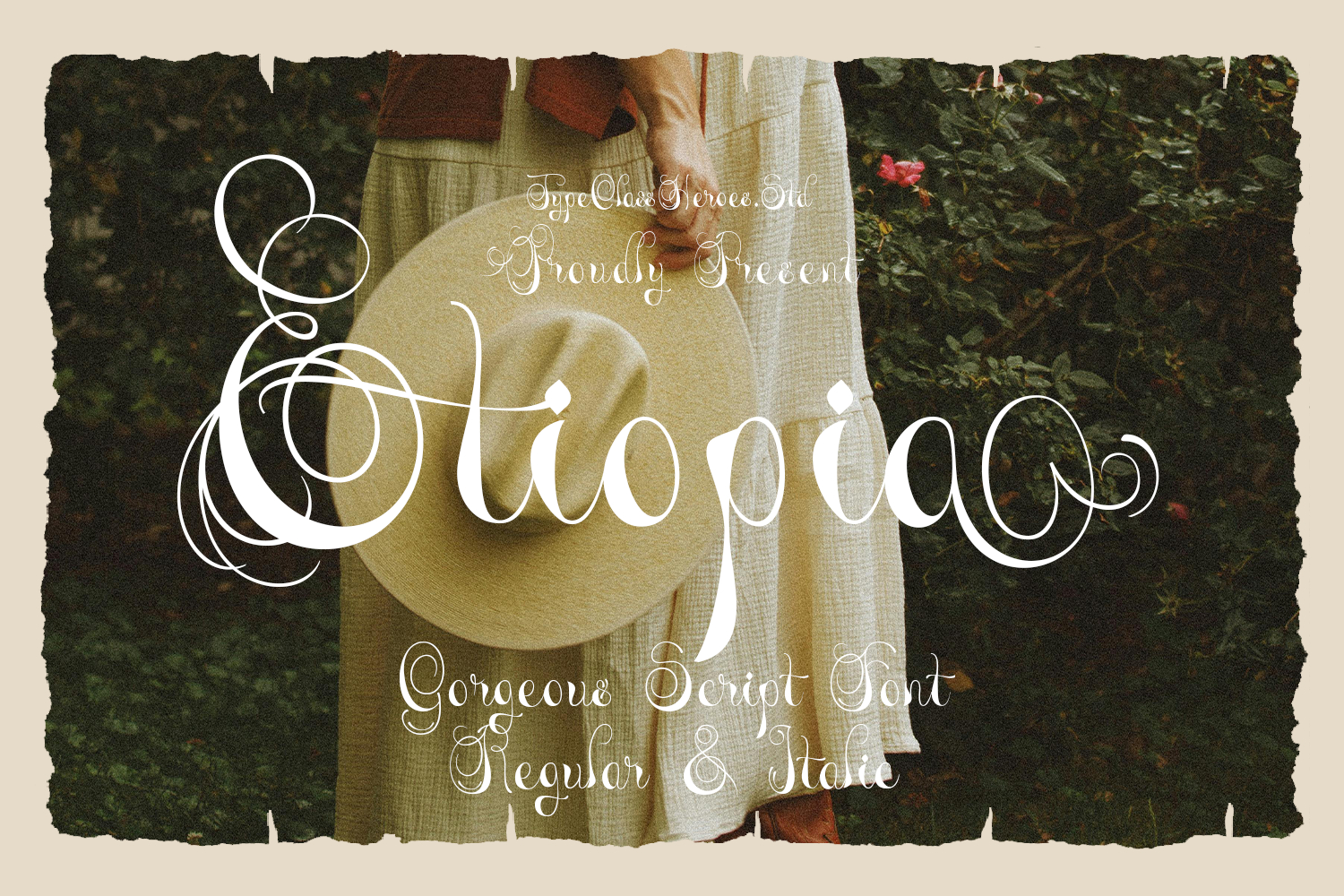
Etiopia Script
Introducing Etiopia Script, this font appears to blend seamlessly, with its sleek shapes creating a soft and feminine feel. Its thin, light appearance exudes a captivating beauty, perfect for designs that require a touch of elegance, high-end branding, book covers, or high class invitations, particularly for classic or heritage brands.